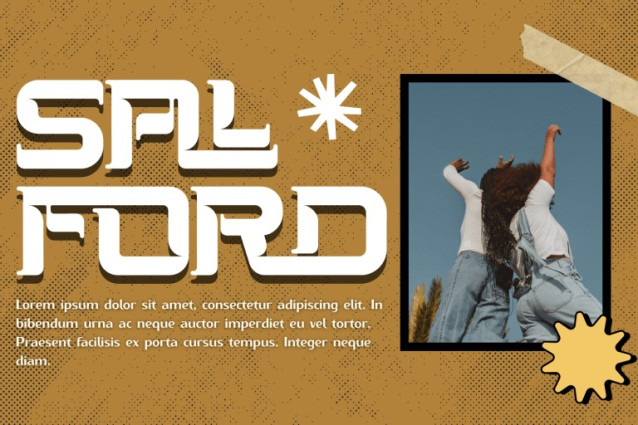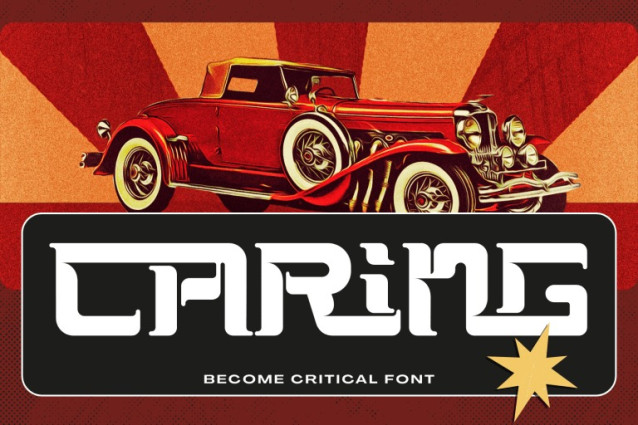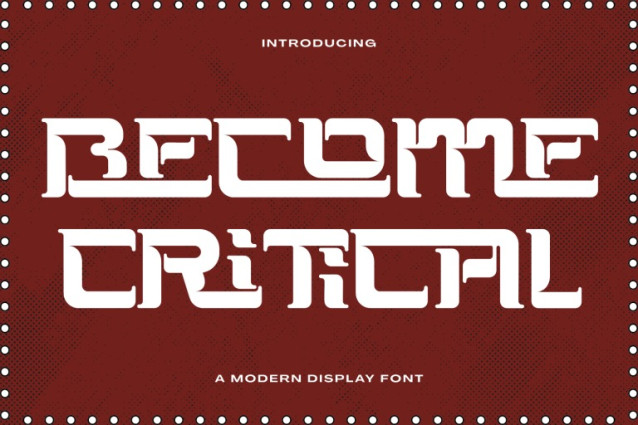
Become Critical Font
BECOME CRITICAL – BOLD RETRO FONT – Bold Retro Slab Serif Display Font, a bold retro slab serif display font inspired by classic vintage typography and mid-century graphic design. The font features thick, rounded slab serifs, geometric letter construction, and smooth horizontal strokes that create a strong, confident, and nostalgic visual presence. Its compact proportions and sturdy structure give the typeface excellent impact and readability at large sizes. BECOME CRITICAL carries a distinctive retro personality with a modern finish, making it perfect for posters, headlines, branding, packaging, logos, signage, album covers, and editorial designs that need a powerful vintage touch. The carefully designed curves and balanced spacing ensure a clean yet expressive look, suitable for both playful and professional projects.
Uppercase & Lowercase Letters
Around 100 Special Ligatures & Alternates
🔤About 100 ligatures combined with Stylistic Alternates Font:
AC AD AL AN AR AS AT AU AV BE CA CE CH CO CT DE DI EA EC ED EE EL EM EN EP ER ES ET FE FO FR GE HA HE HI HO IE IC IL IN IO IR IS IT JU KE LA LE LI LL LO LY MA ME MI NC ND NE NG NO NT NS OC OF OM ON OO OP OR OT OU OW PA PR RA RD RE RI RO RS RT SE SH SI SO SS ST TA TE TH TI TO TR TT UM UN UR VE WI WO